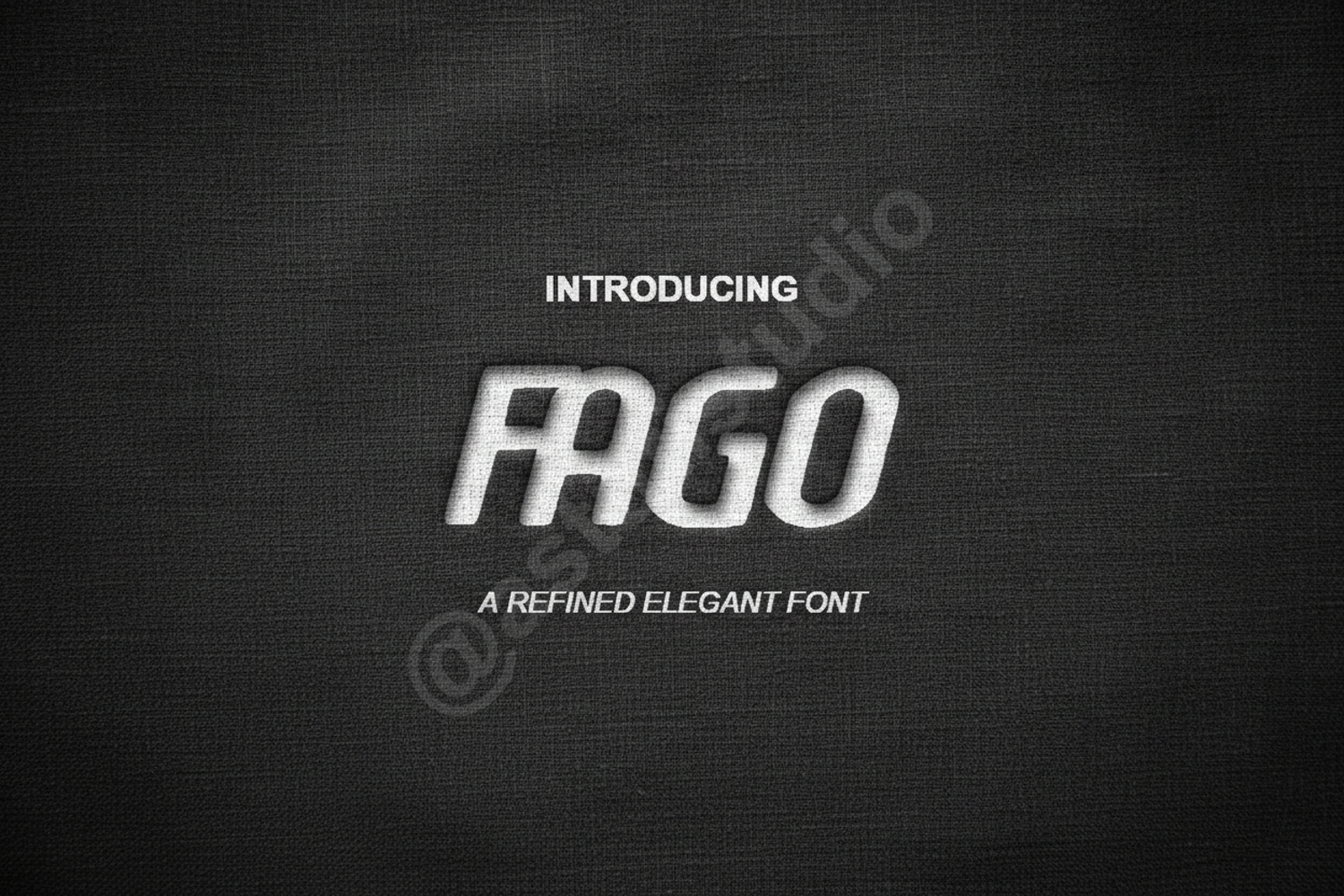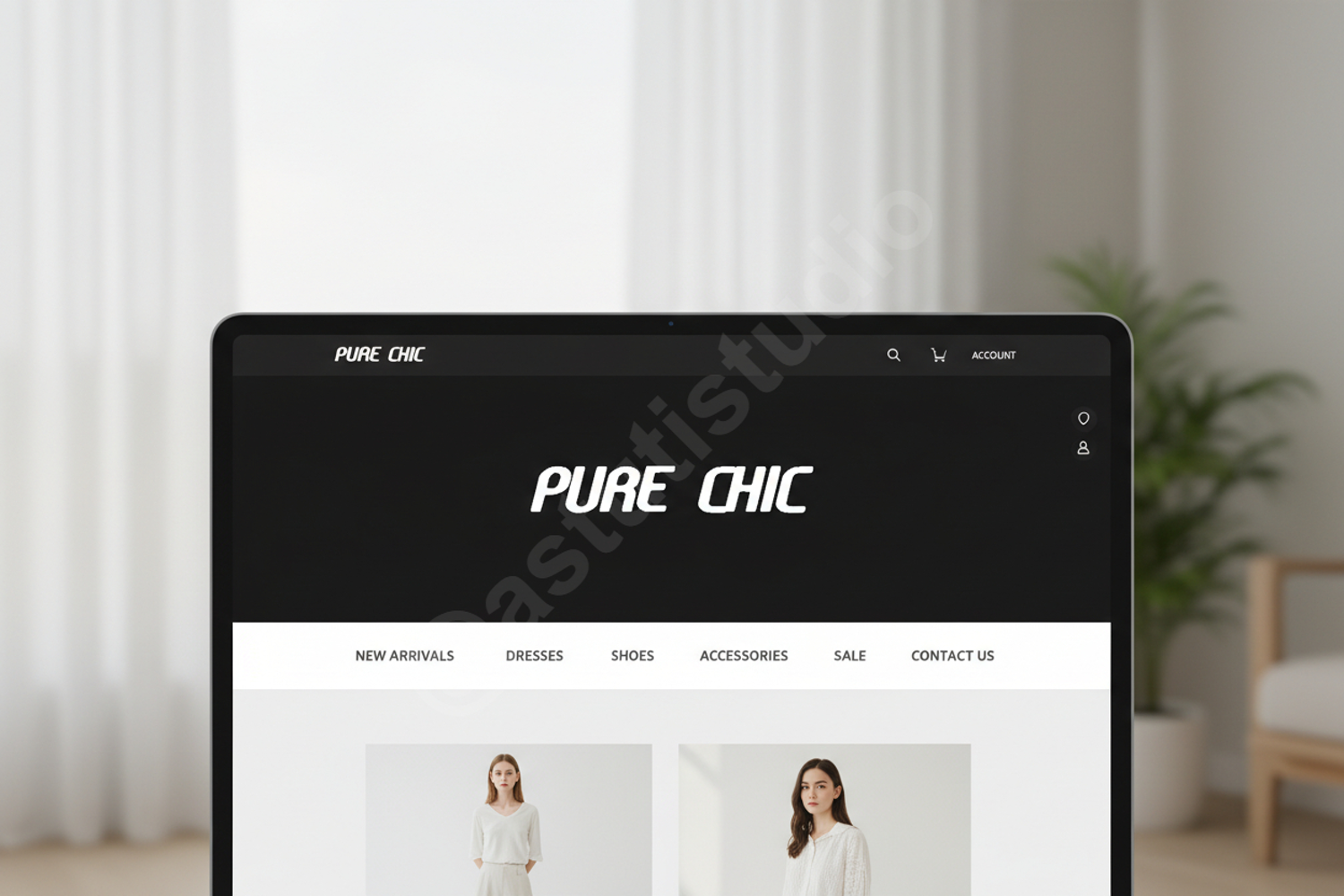
Fago | Modern Geometric Sans Serif Typeface
Fago
Experience the perfect blend of precision and style with Fago, a premium geometric sans serif font designed for the modern creator. Fago offers a clean, balanced aesthetic that ensures readability across both digital and print mediums. Whether you are building a brand from scratch or looking for a reliable display face, Fago provides the professional edge your projects deserve.
- Branding and Logo Design: Create a memorable and professional identity.
- Wedding Stationery: Perfect for modern, minimalist invitation suites.
- Web and UI/UX Design: High legibility for clean user interfaces.
- Editorial and Print: Ideal for magazines, brochures, and posters.
- Social Media Graphics: Stand out with bold, clear typography.